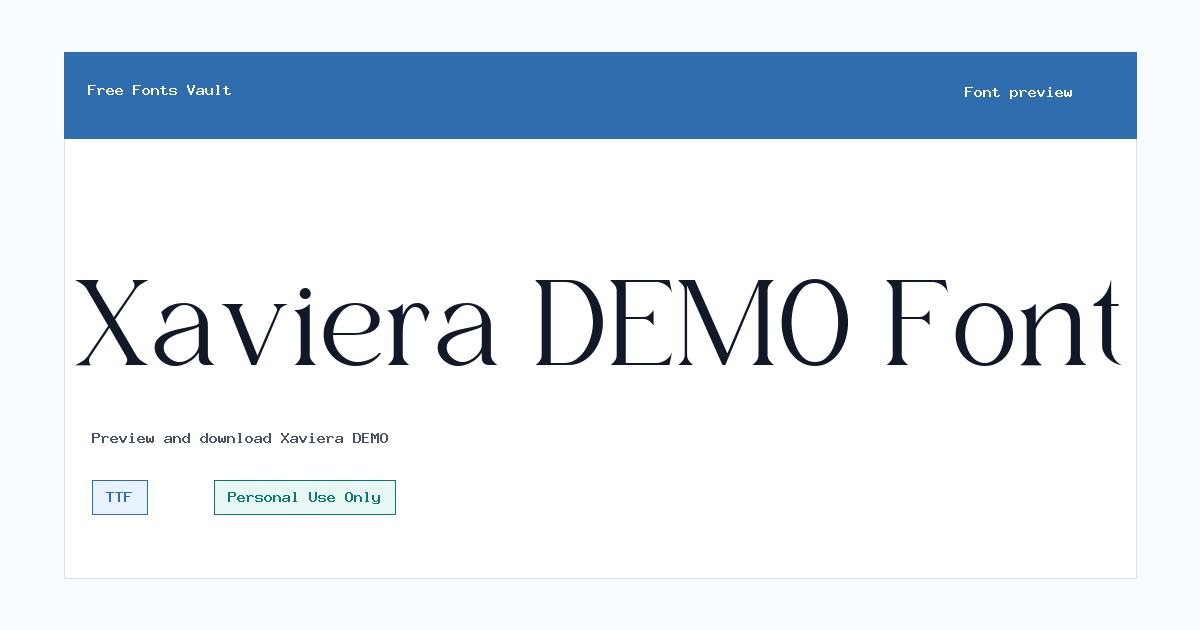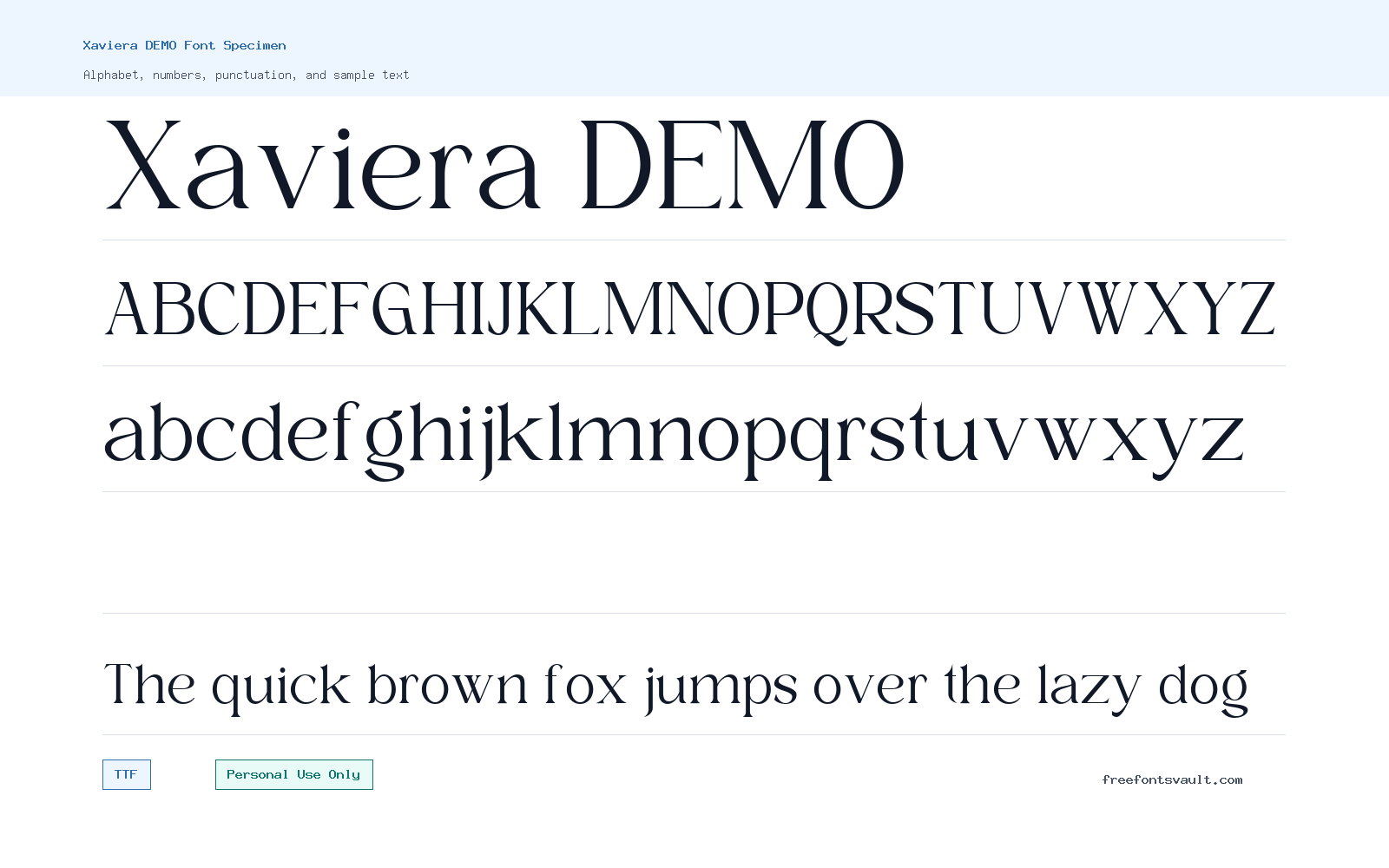
Xaviera DEMO
Xaviera DEMO font.
Xaviera DEMO is a serif font with a polished display feel, made for visitors who want to test a stylish typeface in headlines, branding drafts, posters, and visual mockups before downloading it.
About Xaviera DEMO
Xaviera DEMO is presented as a regular-weight TTF font from Say Studio. Its name and demo status suggest a font intended for trial or limited personal use rather than unrestricted professional deployment. For a visitor, the most useful way to approach it is as a display serif: test it in larger sizes first, look closely at the spacing between letters, and see how it handles short words, names, titles, and decorative text. Fonts like this are usually most effective when they are not forced to carry long paragraphs. A few words at a large size will tell you more about its character than a full block of body copy.
Use the preview box to try the exact words you plan to design with. Type a brand name, poster headline, invitation title, YouTube thumbnail text, or social media phrase and compare uppercase, lowercase, numbers, and punctuation. If you are designing a logo concept, check difficult letter pairs such as AV, To, Wa, Yo, and Te, because display serifs can look very different depending on the word. For web mockups, test the font at hero-title sizes and pair it with a quiet sans serif for navigation, captions, and paragraphs. Keeping the supporting type simple will help Xaviera DEMO stand out without making the layout feel crowded.
For visual design, Xaviera DEMO is best handled with restraint. Try it for one major text element, then support it with clean spacing and a neutral companion font. In poster layouts, it can work well as the title while a readable sans serif carries dates, locations, and smaller information. In logo exploration, it can help you test a more refined or editorial direction, but make sure the finished identity uses properly licensed files. In social posts and thumbnails, use strong contrast and enough letter spacing so the serif details do not blur at small sizes.
- Serif display character suited to short titles, branding drafts, posters, and visual mockups.
- Single-style download encourages focused use as a headline or accent font rather than a full text system.
- Logo concept sketches and brand-name previews
- Poster titles, invitation headings, and editorial-style cover text
- Website hero mockups where the font is used for a main headline
- Social media graphics, thumbnails, and personal design experiments
- Pairing tests with simple sans serif fonts for cleaner layouts
Is Xaviera DEMO good for body text?
It is better to test it as a display font for short headings, names, and titles. For longer reading, pair it with a simpler text font.